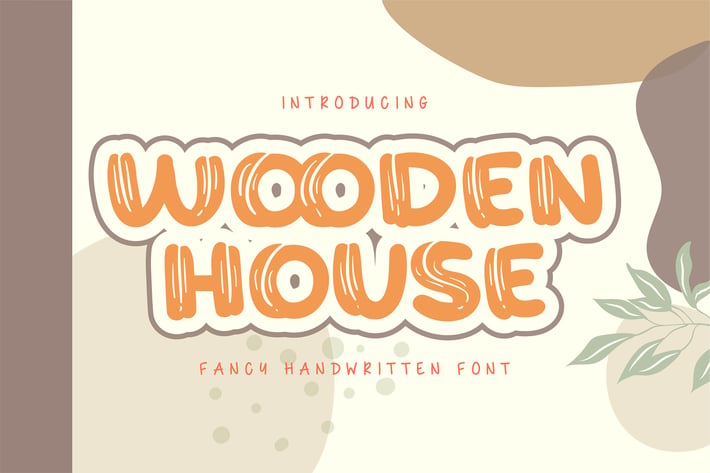
Wooden House | Fancy Handwritten Font
Wooden House | Fancy Handwritten Font with a calligraphy style, So beautiful on invitation like greeting cards, branding materials, business cards, quotes, posters, and more!